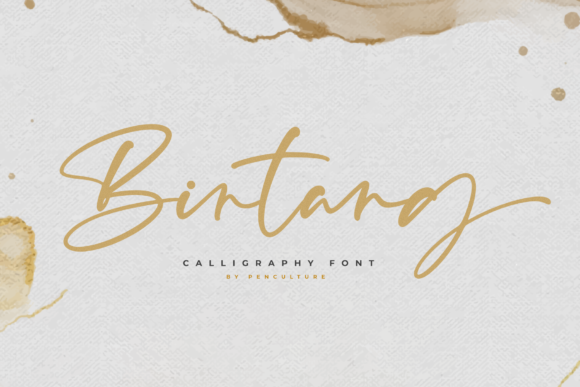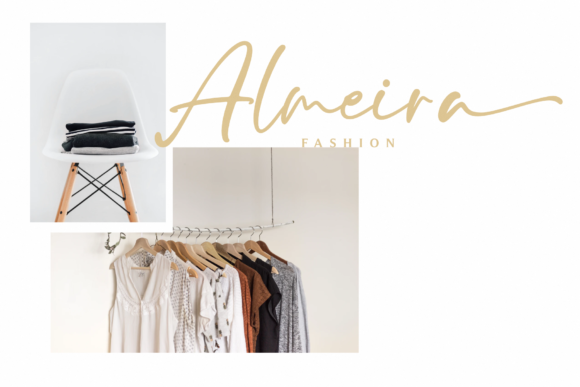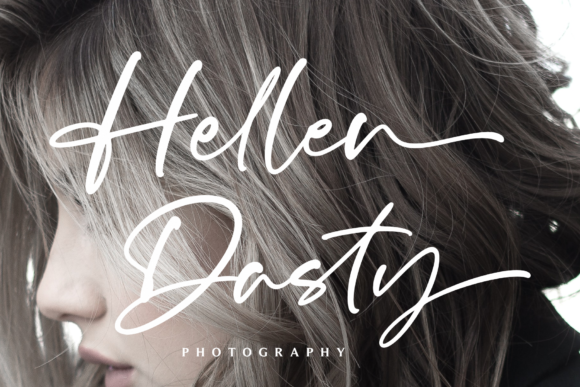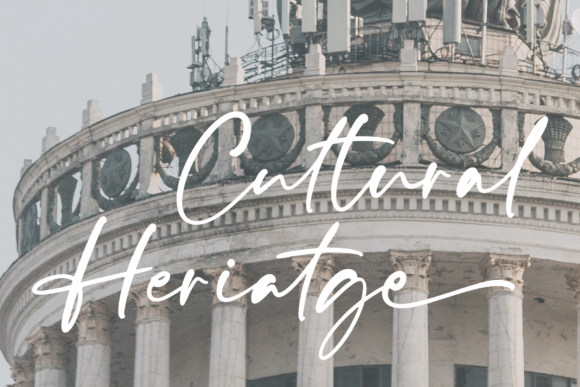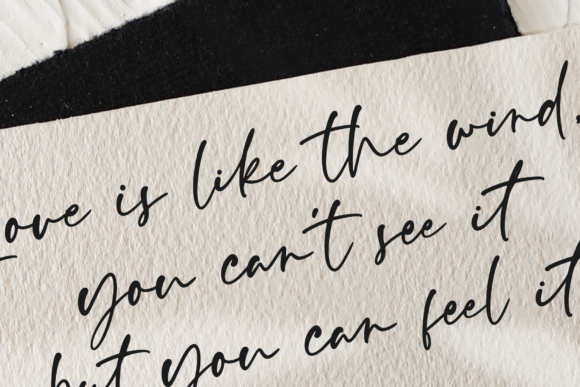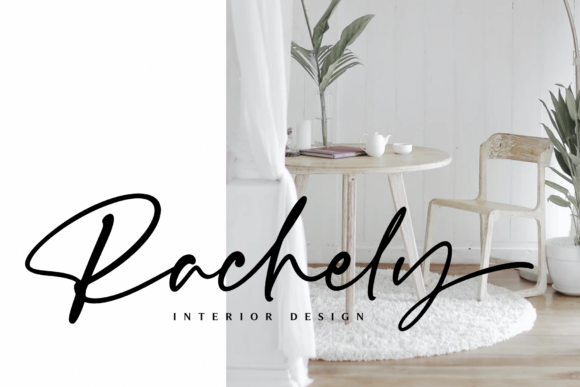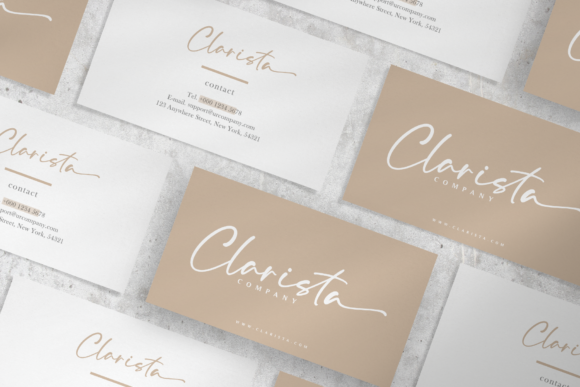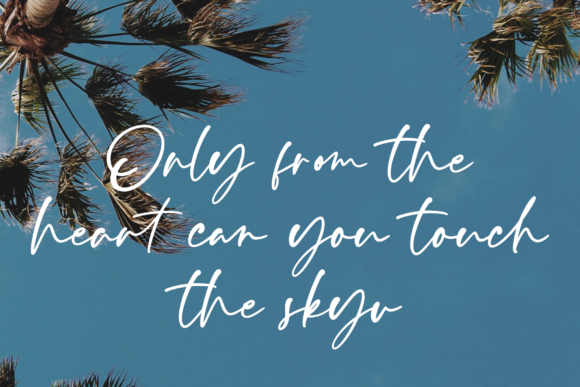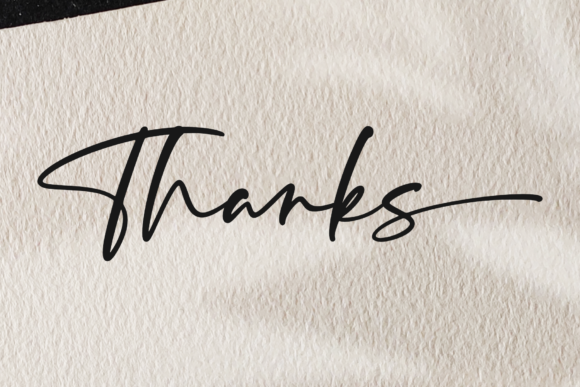
Bintang Font
About Bintang Font
Bintang is a cute and casual handwritten font with an incredibly friendly feel. Whether you’re looking for fonts for Instagram or calligraphy scripts for DIY projects, Bintang will turn any creative idea into a true piece of art!